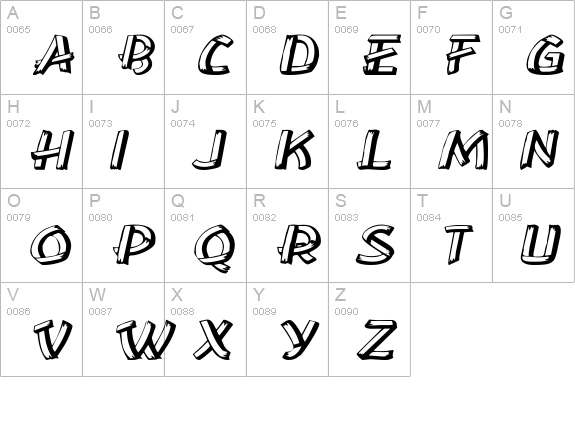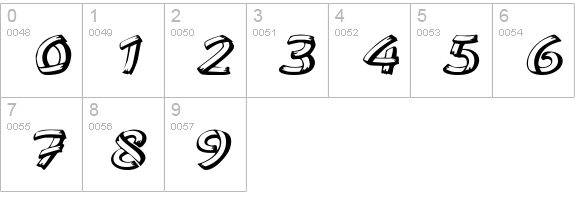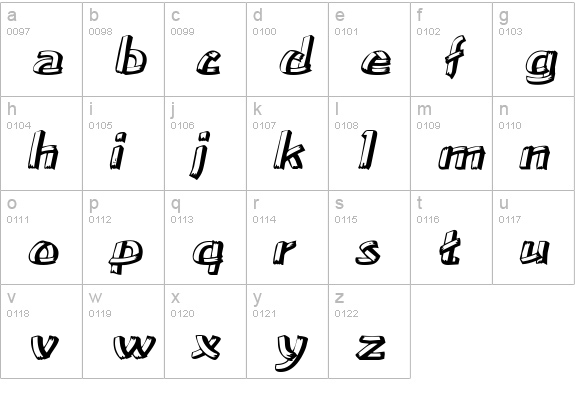
TreehouseExtended Oblique Font Details
TreehouseExtended Oblique is a distinctive, italic variant in the TreehouseExtended typeface family \xE2\x80\x94 well suited to design and typography projects.
TreehouseExtended Oblique font is a striking display typeface that exudes a sense of modernity and sophistication. This unique font combines the elegance of traditional typography with a contemporary twist, making it perfect for a wide range of design projects. With its elongated and slanted letterforms, TreehouseExtended Oblique font adds a sense of movement and dynamism to any design. Its sleek and stylish appearance makes it ideal for branding, logos, headlines, and any other creative endeavor that requires a touch of artistic flair. One of the standout features of TreehouseExtended Oblique font is its versatility. It effortlessly adapts to various design styles, whether it be minimalistic, edgy, or even vintage-inspired. The font's bold and confident presence ensures that it grabs attention and leaves a lasting impression. And the best part? TreehouseExtended Oblique font is freely available to download at FontsMarket.com. This means that designers, artists, and creatives of all kinds can easily access this remarkable font and incorporate it into their projects without any cost. Whether you are a seasoned professional or a budding designer, TreehouseExtended Oblique font is a valuable addition to your typography arsenal. Its clean lines, elegant curves, and distinct oblique angle will elevate your designs to new heights, setting them apart from the crowd. Don't miss the opportunity to enhance your creative endeavors with TreehouseExtended Oblique font. Download it for free at FontsMarket.com and unleash the power of this exceptional typeface in your next project.